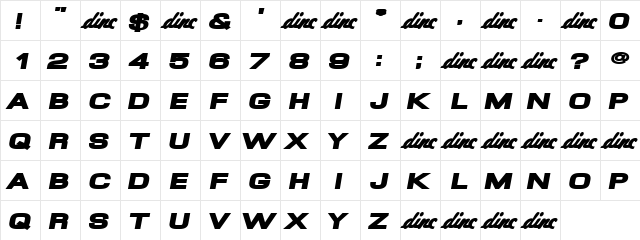
SevenDays Regular Font Preview
SevenDays Regular
Design Context for SevenDays Typeface
SevenDays offers clean, dependable letterforms without strong stylistic allegiance, making it a practical choice for designers who need flexibility.